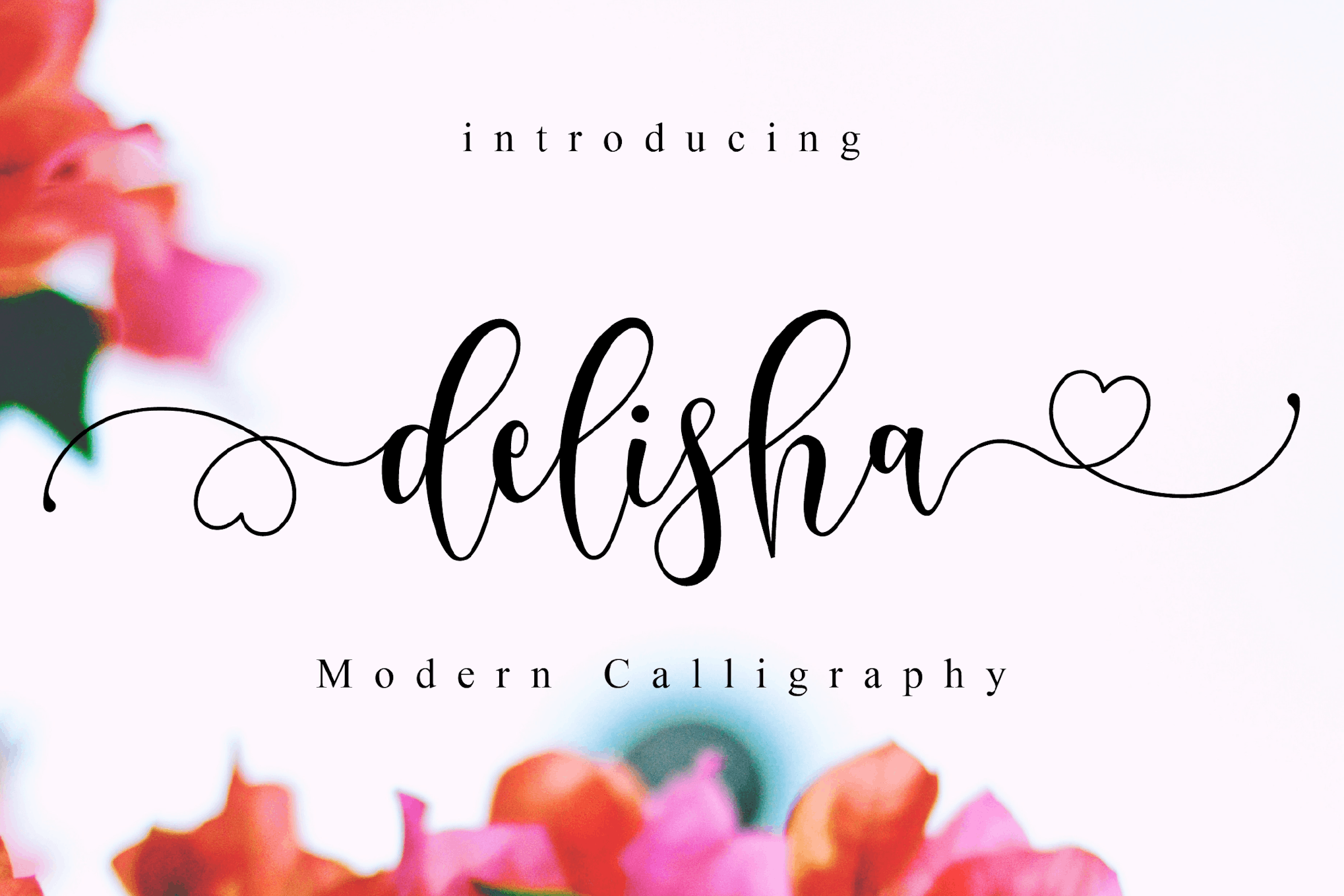
Delisha - Wedding Font
The Delisha - Wedding Font excels in delightful design applications including charming wedding invitations, delightful bridal branding, enchanting ceremony logos, charming product packaging, delightful business cards, enchanting portfolios, charming greeting cards, delightful social media graphics, enchanting event signage, and charming marketing materials. Its delightful script style makes it perfect for projects requiring charming elegance that communicates delight and establishes enchanting brand positioning with audiences seeking delightful wedding experiences and charming sophistication.
What makes the Delisha - Wedding Font truly exciting is its exceptional ability to capture the delightful charm and enchanting beauty of charming weddings through delightfully crafted letterforms. The font features flowing, delightful strokes with charming flourishes and enchanting proportions that create a distinctly delightful appearance. Each character displays remarkable attention to charming detail with delightful curves, enchanting connections, and charming spacing that give text a beautifully delightful, hand-lettered quality. The font's delightful character and charming rhythm create an atmosphere of enchanting elegance while maintaining delightful sophistication and wedding authenticity.
The Delisha - Wedding Font family typically includes regular weight with extensive character coverage, featuring uppercase and lowercase letters, numerals, punctuation marks, and international characters. The typeface often incorporates stylistic alternates, contextual ligatures, and delightful swashes that enhance its signature charm. These additional elements provide designers with creative flexibility to customize text appearance and achieve more natural-looking charming handwriting that reflects the font's delightful and enchanting character.
This delightful signature font distinguishes itself through its remarkable balance of charming appeal and sophisticated elegance. Unlike dull or uncharming fonts that lack delightful appeal, Delisha - Wedding Font embraces the power of charming design to create delightful connections with enchanting wedding audiences. The font's delightful character makes it essential for charming wedding planners, delightful brands, and enchanting celebration businesses where creating delightful wedding experiences and charming memories is fundamental to success in enchanting wedding markets.